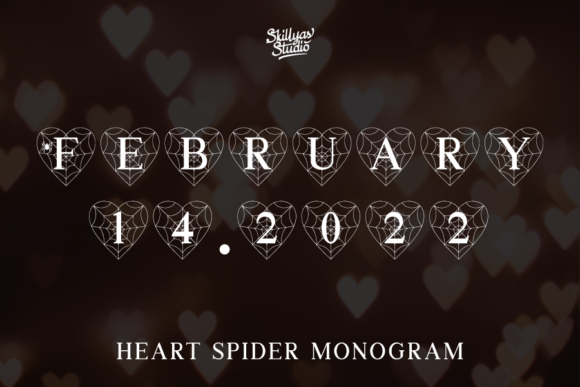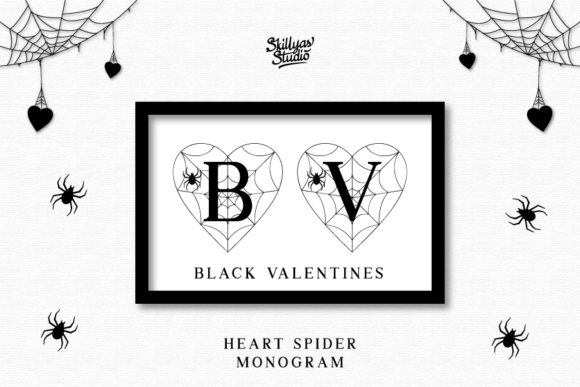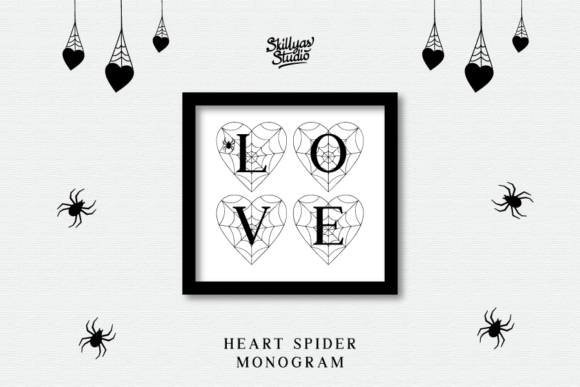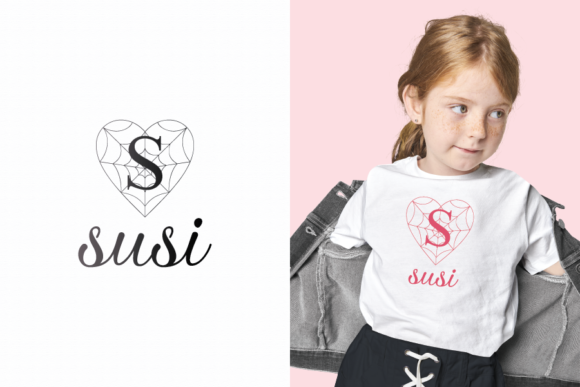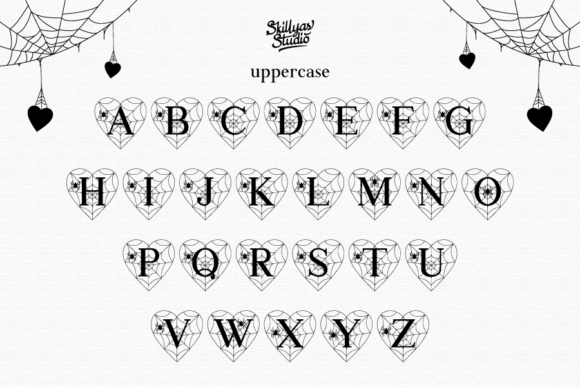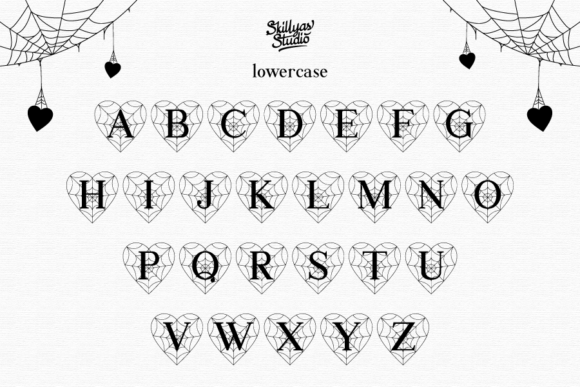
Introduction to Heart Spider Monogram Font Font
Fonts play a crucial role in design, and the Heart Spider Monogram Font font is a typeface that brings both character and versatility to any project. Whether you’re working on a branding project, a website, or a print design, the Heart Spider Monogram Font font offers a unique style that can elevate your work.
Heart Spider Monogram is a unique and spooky decorative font.
Add it to each of your awesome designs and make them instantly stand out .
Key Features of Heart Spider Monogram Font Font
Why Choose Heart Spider Monogram Font Font?
The Heart Spider Monogram Font font is more than just a typeface – it’s a design tool that helps you communicate your message with style and clarity. Its unique character set and versatile design make it suitable for a wide range of applications, from elegant invitations to bold headlines.
With its carefully crafted letterforms and balanced proportions, the Heart Spider Monogram Font font ensures readability and visual appeal across all mediums.
What makes Heart Spider Monogram Font font special?
The Heart Spider Monogram Font font stands out with its unique design, exceptional readability, and versatility across various design applications.